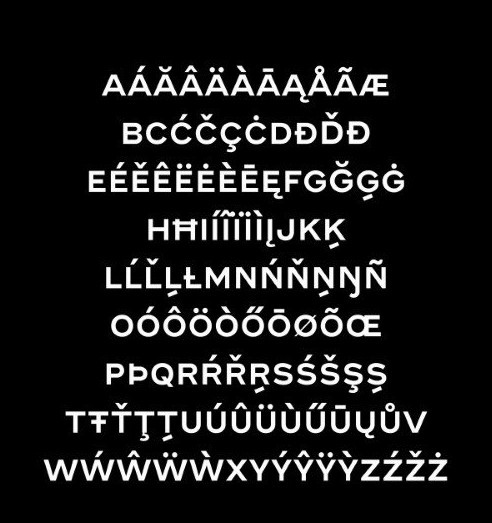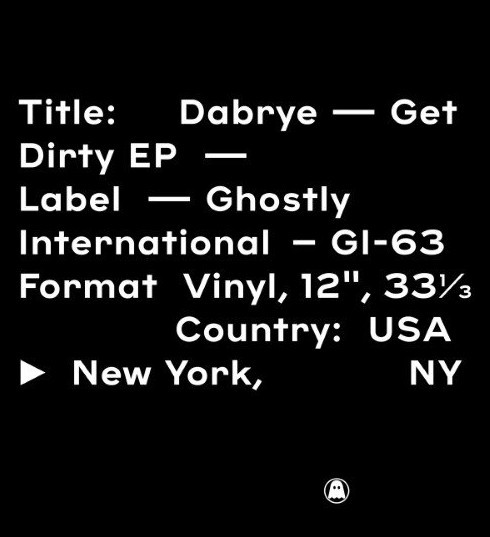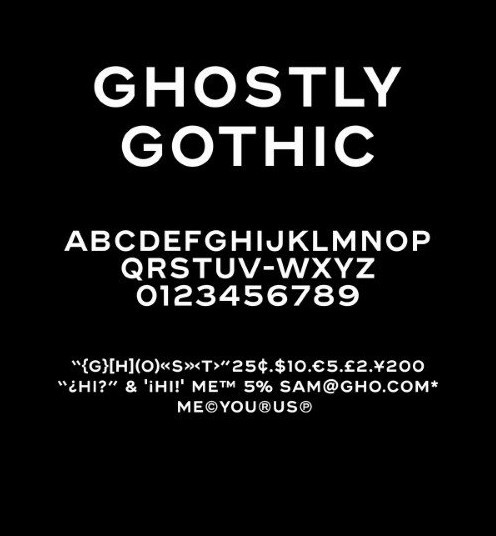
Ghostly Gothic Sans Serif font, It can easily be matched to an incredibly large set of projects, so add it to your creative ideas and notice how it makes them stand out!
Long-time Ghostly collaborator Michael Cina has launched a new type foundry and has made Ghostly Gothic available to all. “Ghostly’s steady rhythm carries an established yet current tone. Originally cut for Ghostly International as a request from founder Sam Valenti IV, the font has proved itself in demanding display use down to supplemental details. It’s a succinct workhorse with a timeless geometric stature, well-suited for branding and ever changing contexts.